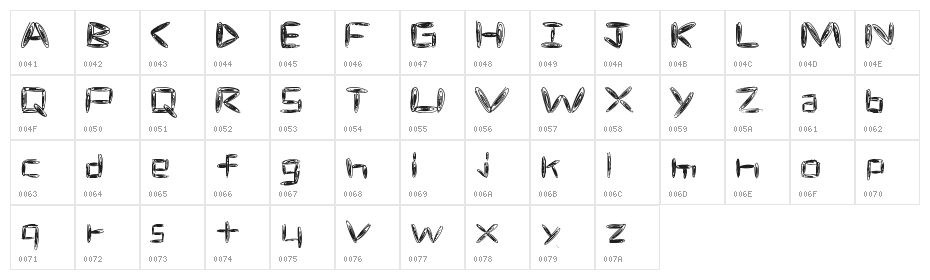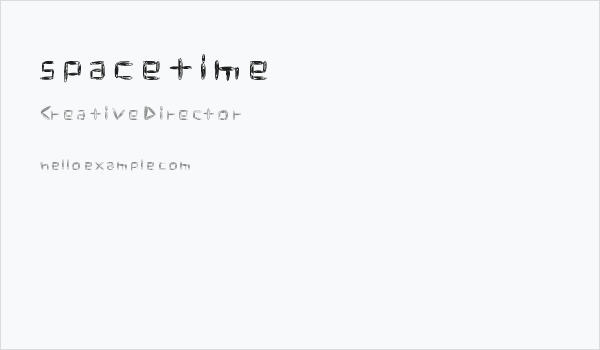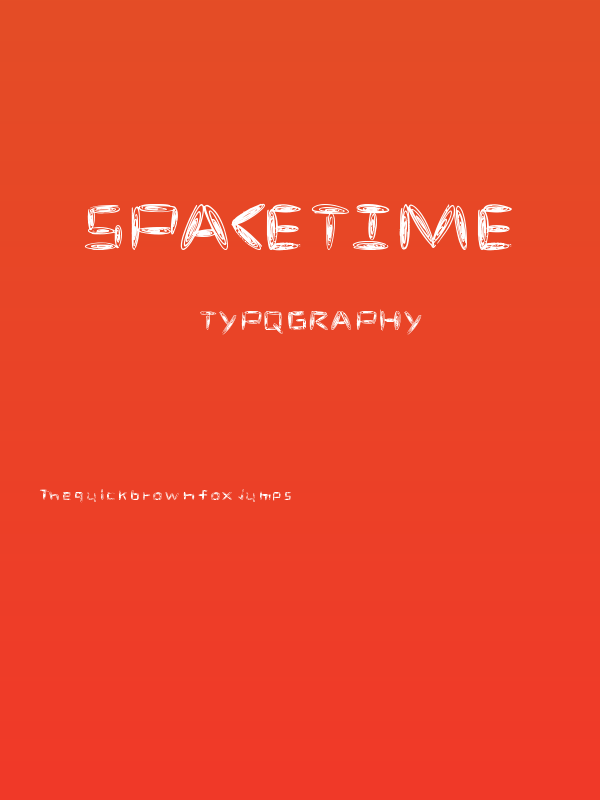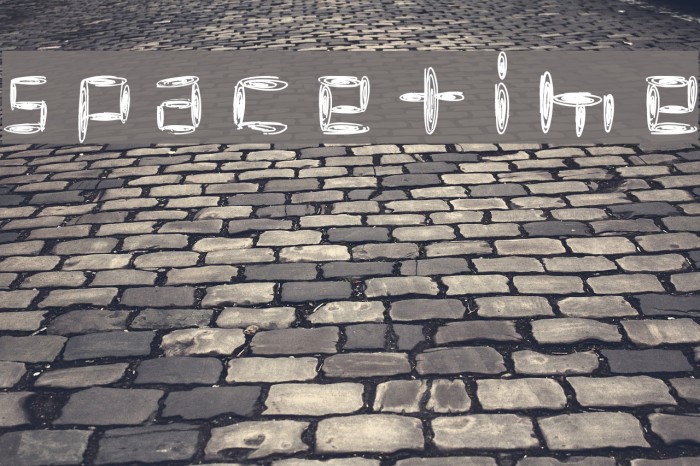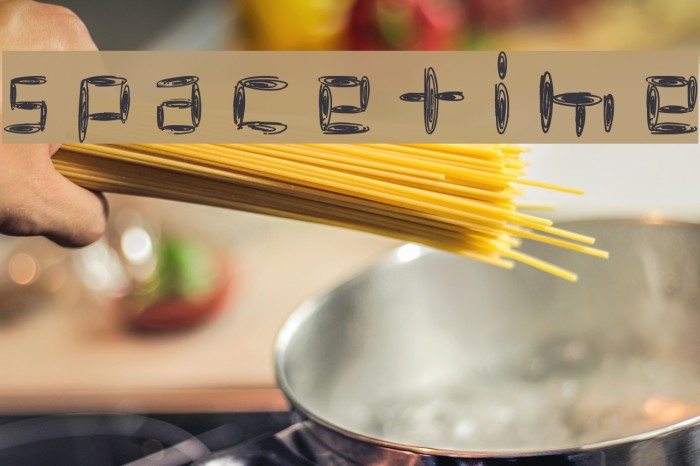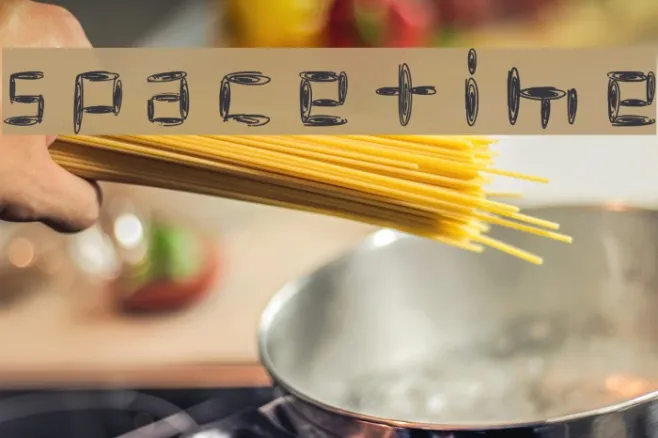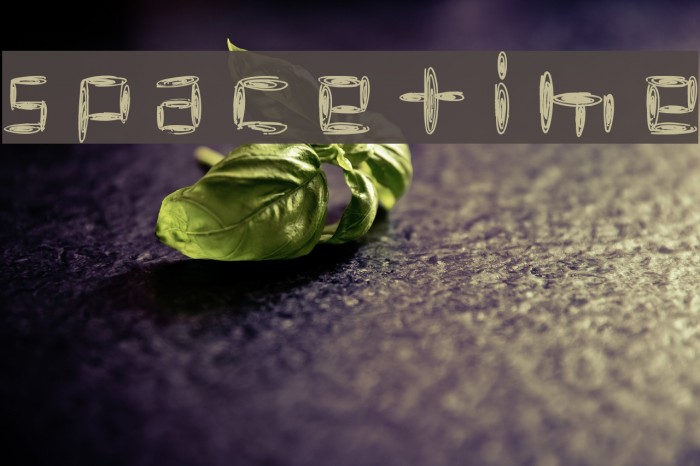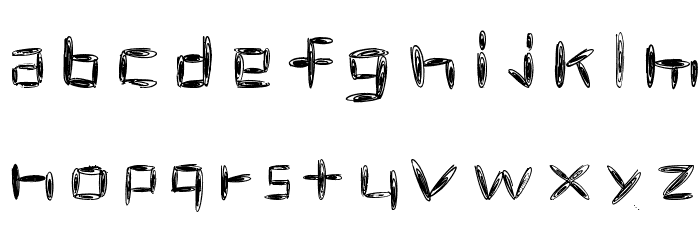
spacetime Font
spacetime Description
This font features a unique, hand-drawn style with a playful and artistic flair. Each character is crafted with a series of overlapping lines, creating a sense of movement and depth. The strokes are uneven, adding to the whimsical and organic feel of the typeface. The uppercase and lowercase letters maintain a consistent style, with rounded edges and a slightly irregular form. The numbers and special characters follow the same design principles, ensuring a cohesive look across all elements. This font is perfect for projects that require a creative and informal touch.
| Use Case | Logos, Posters, Creative projects |
| Proposed Projects | Ideal for children's books, creative posters, artistic branding, and informal invitations. |